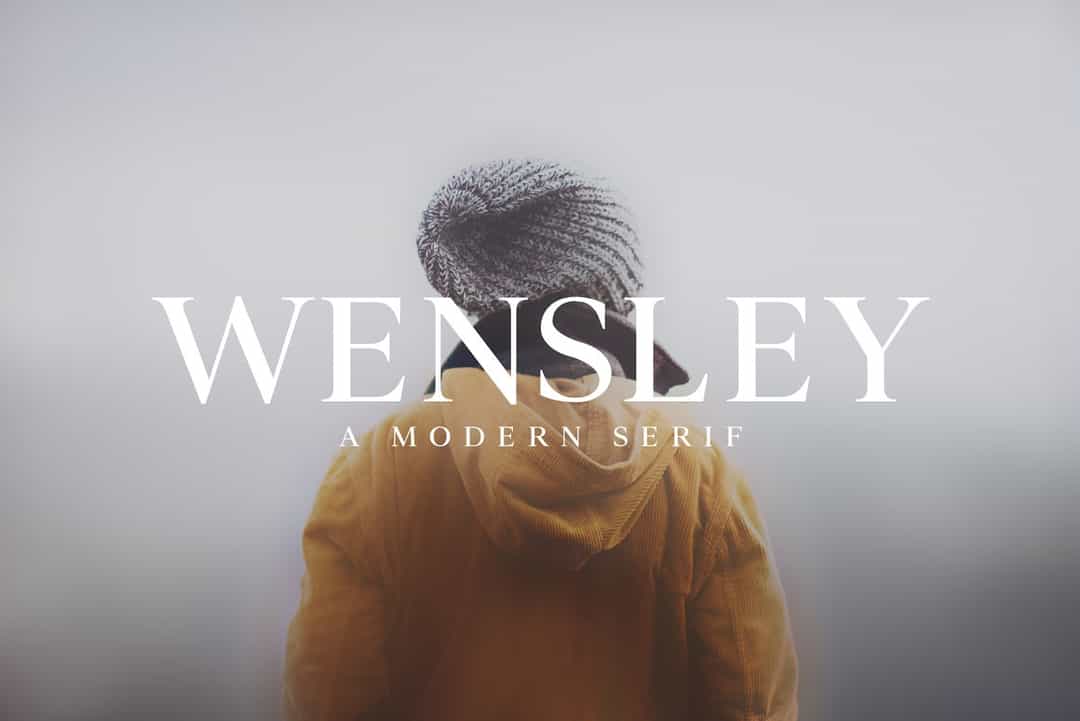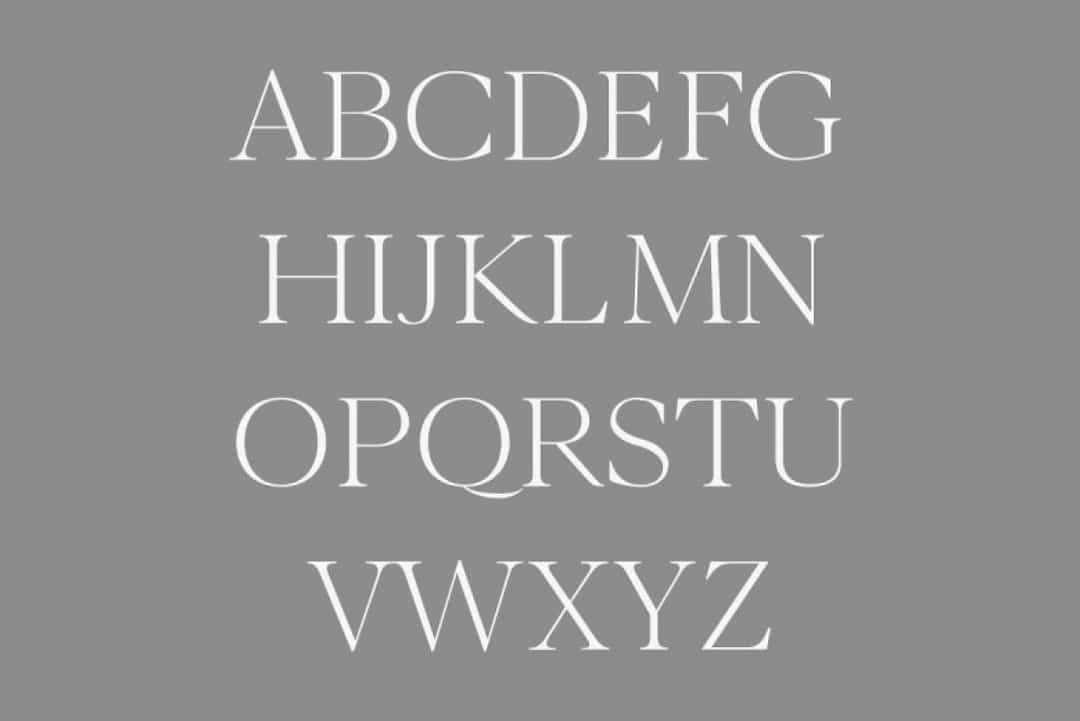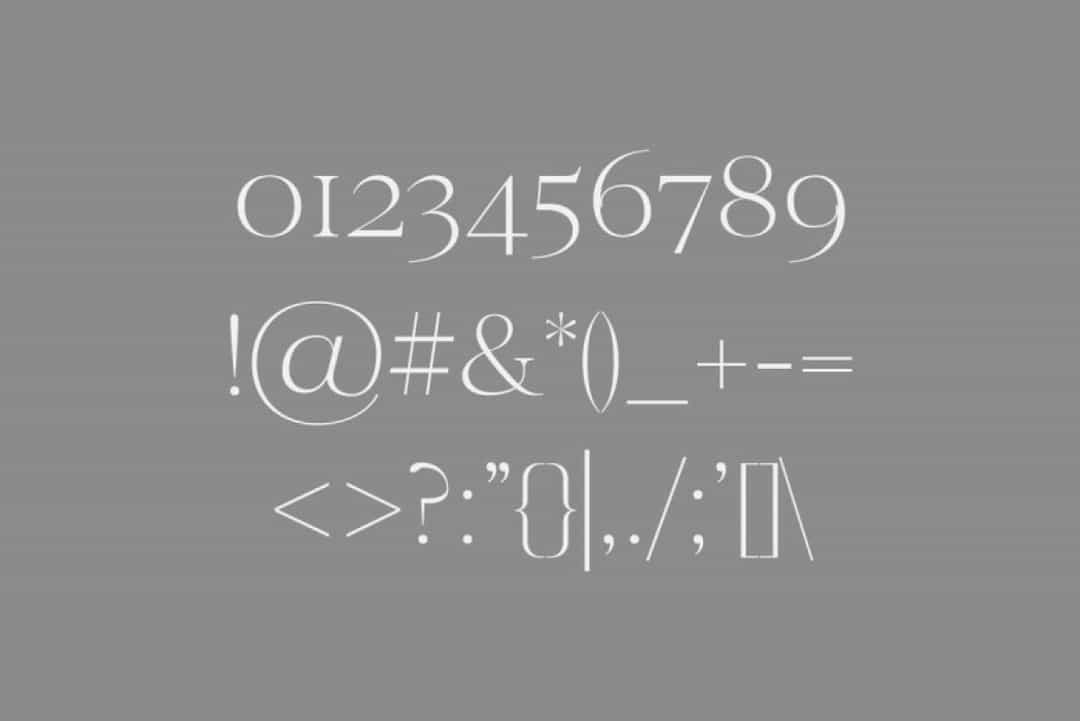
Wensley is a sophisticated and high-end serif typeface designed for modern design projects. It contains all essential non-English characters in its base font glyphs. This font matches signature, script style or handwriting well; making Wensley ideal for logo presentations, posters names, name cards invitations web layouts books branding as well as almost every creative endeavor you might think up!